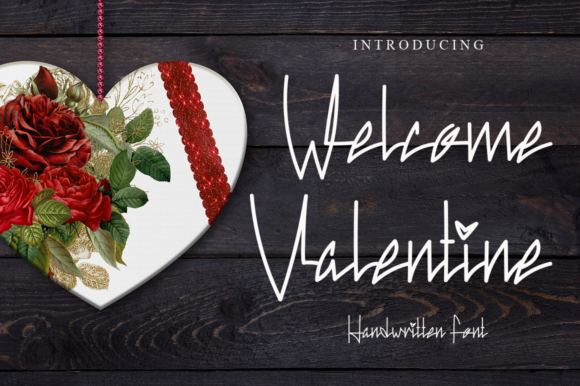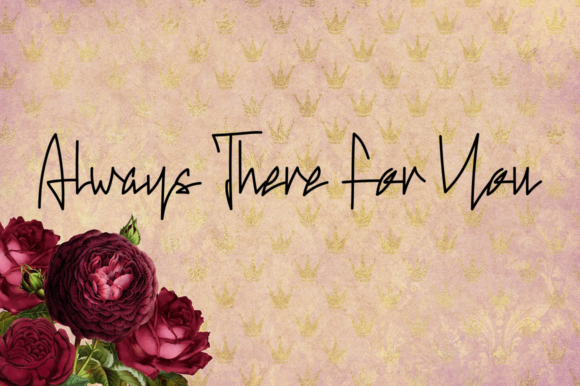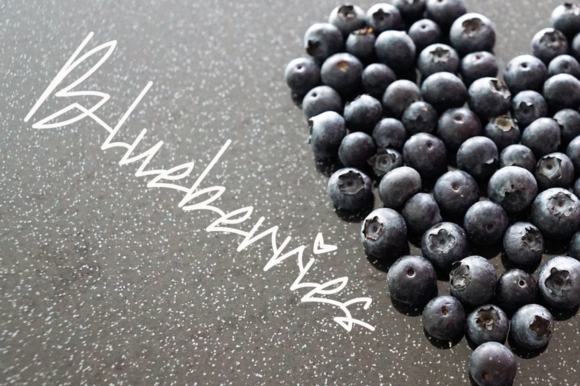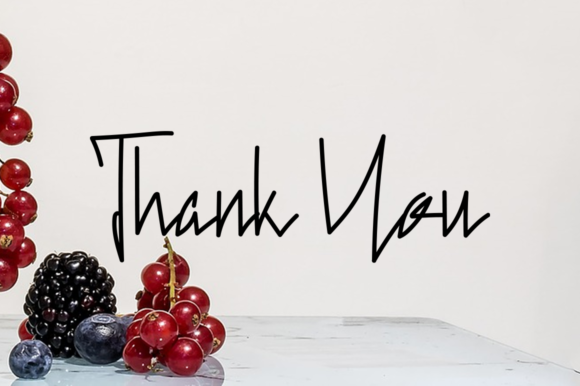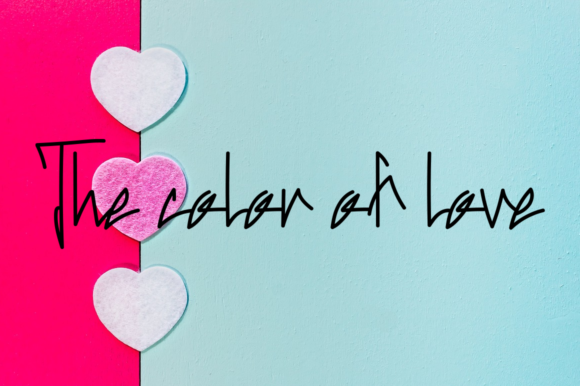
Welcome Valentine Font
About Welcome Valentine Font
Welcome Valentine is a unique, asymmetrical and interesting looking handwritten font. No matter the topic, this font will be an incredibly asset to your fonts’ library, as it has the potential to elevate any creation.